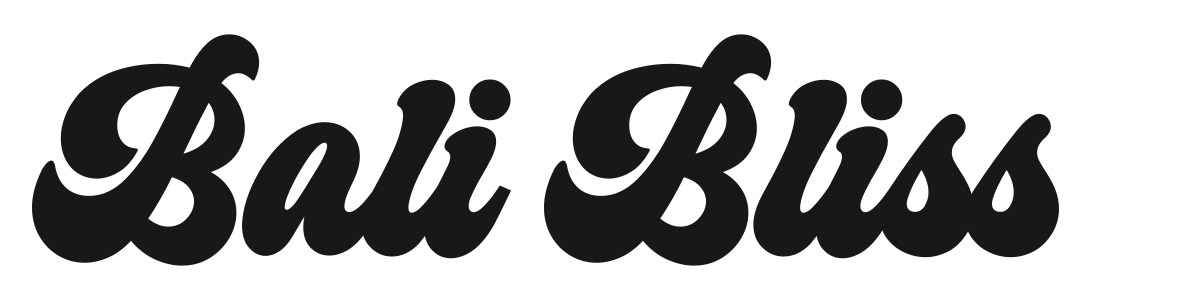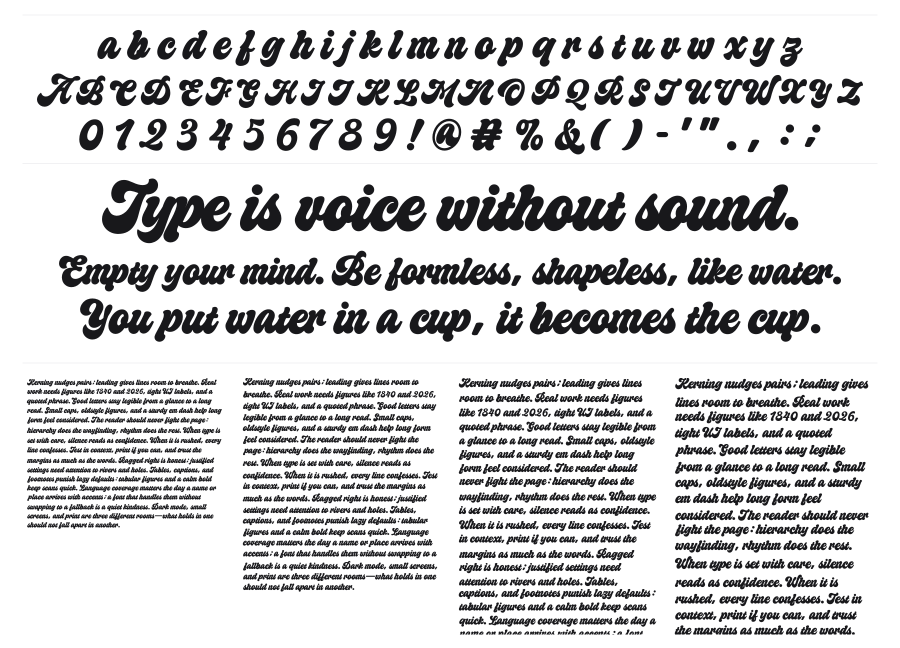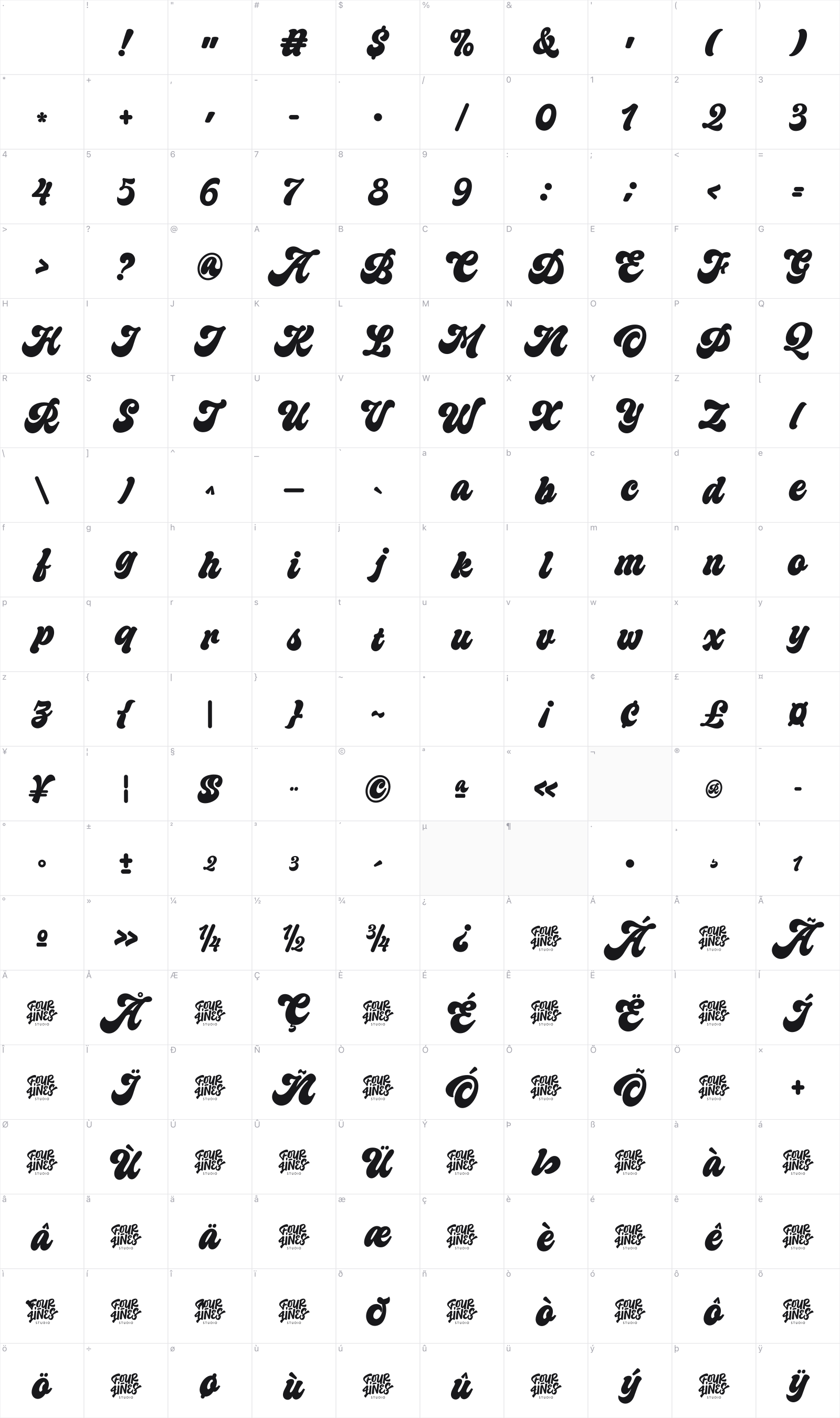
Bali Bliss
Bali Bliss is a bold, connected brush script with smooth rounded strokes and a strong casual energy. Its thick, flowing letters draw from mid-century American sign-painting tradition, balancing retro warmth with a tropical, carefree feel. Works well for logos, packaging, and any headline that needs personality without formality.